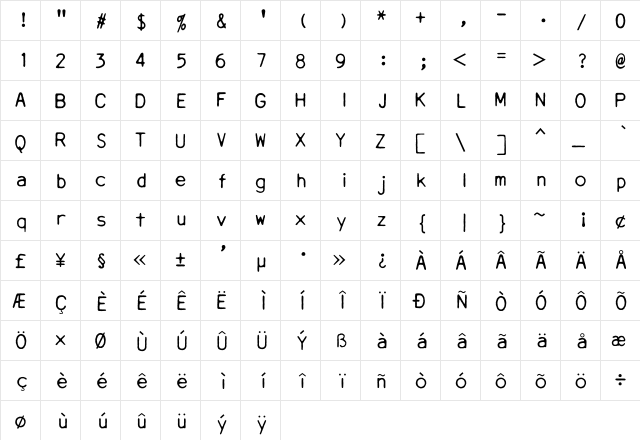
DaisyWheel Regular
| Foundry | Volker Busse, Berlin |
| Designer | Volker Busse, Berlin |
Design Context for DaisyWheel Typeface
DaisyWheel offers clean, dependable letterforms without strong stylistic allegiance, making it a practical choice for designers who need flexibility.
Pro Tip: Pair DaisyWheel with a font of contrasting weight or personality to build a more expressive typographic hierarchy.